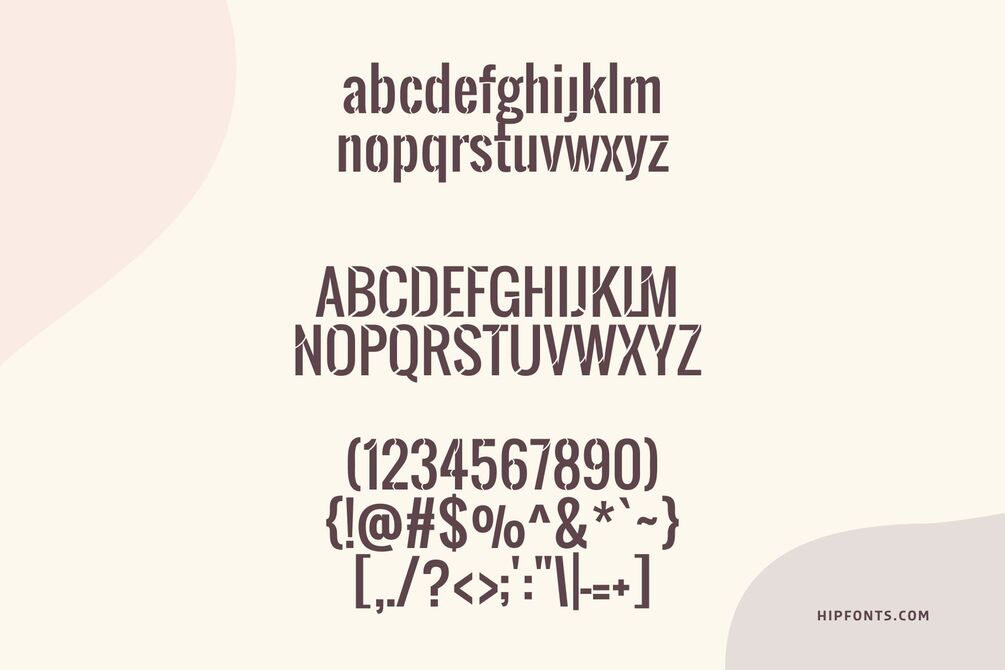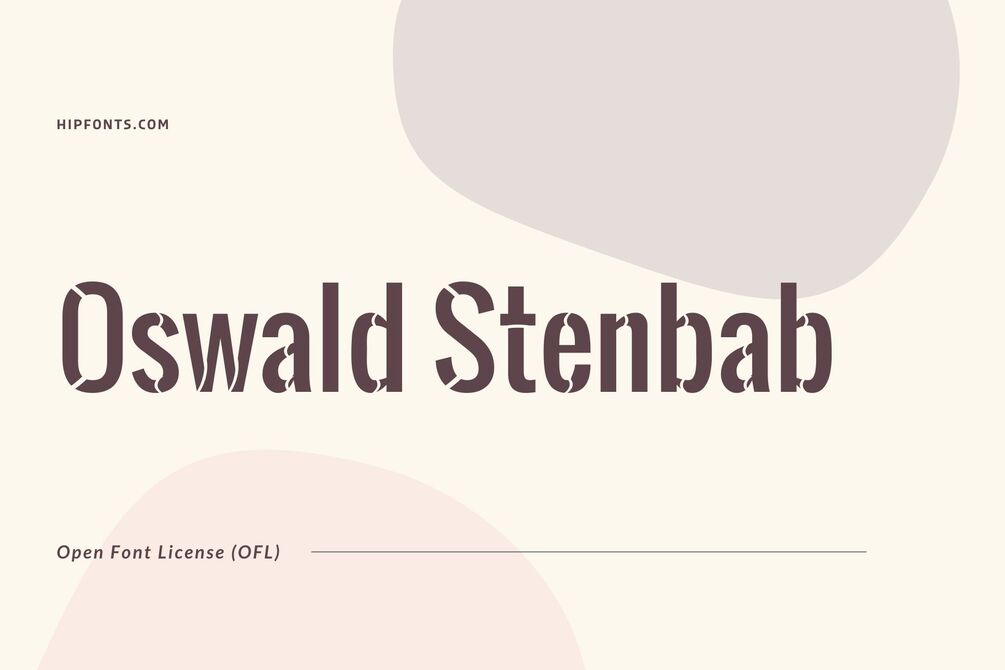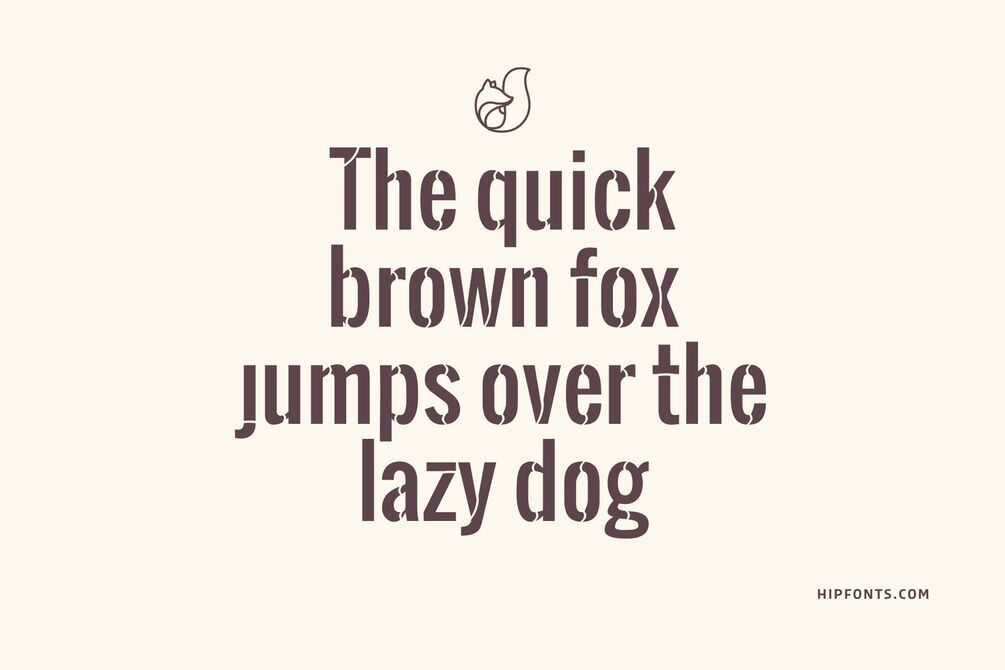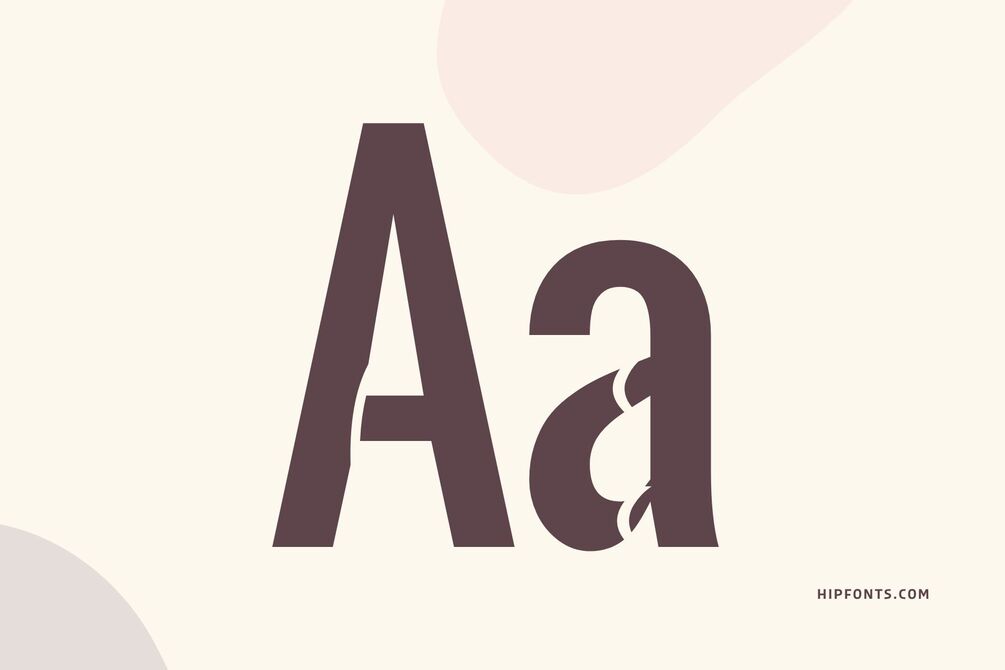
Oswald Stenbab
Oswald Stenbab is a captivating and unique display font that combines the boldness of Oswald with an artistic twist. It’s designed by Mathieu Le Lay with its distinct letterforms exhibiting a stenciled appearance, with cut-out shapes that create a visual impact.
Oswald Stenbab is ideal for projects that require a strong and eye-catching typography, such as headlines, posters, and branding materials. Its carefully crafted design balances readability with a touch of artistic flair, making it a versatile choice for both digital and print applications.
Whether you're designing for a modern art exhibition, creating an edgy magazine layout, or developing a contemporary brand identity, Oswald Stenbab adds a bold and dynamic touch to your designs, ensuring they stand out with creativity and visual interest.